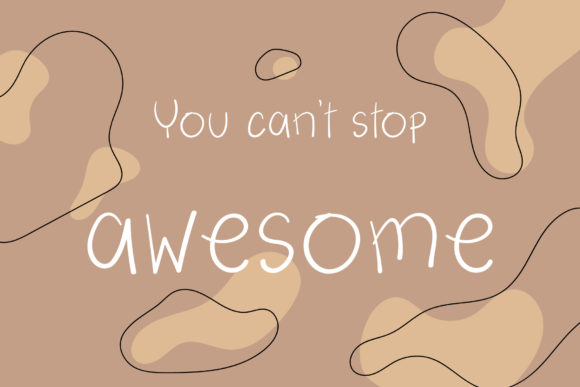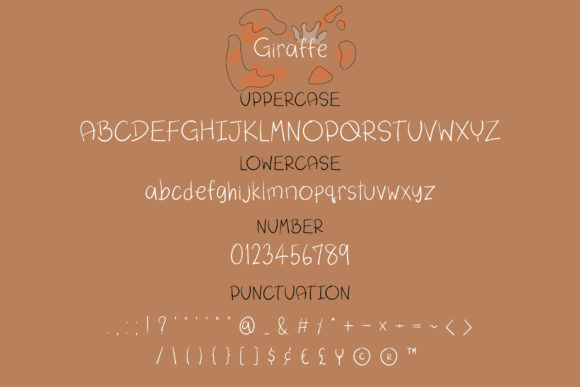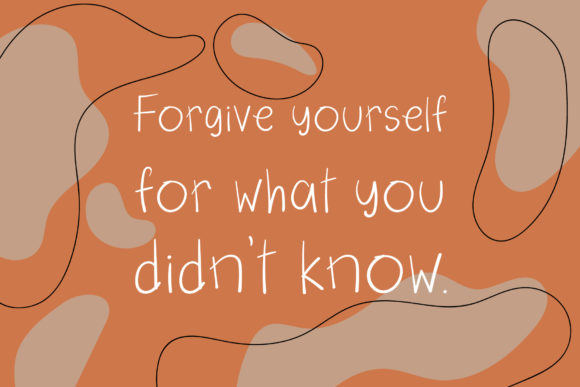
Giraffe Font
About Giraffe Font
Giraffe is a cute and casual handwritten font with an incredibly positive feel. Whether you’re looking for fonts for Instagram or calligraphy scripts for DIY projects, this font will turn any creative idea into a true piece of art!